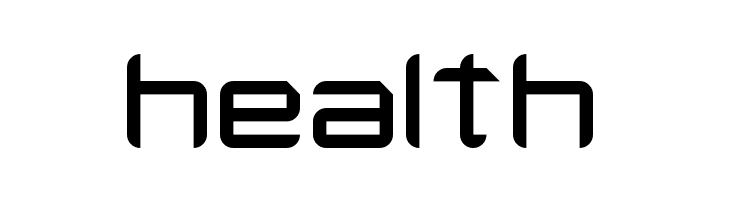
Pathway Gothic One Regular Font
A modern, tall, and narrow sans-serif font with a clean and streamlined appearance.
Nasty Font
An ornate and decorative font with intricate, swirling embellishments.
Dirty Ego Font
A bold, distressed font with a grunge, textured style.
Nail Scratch Font